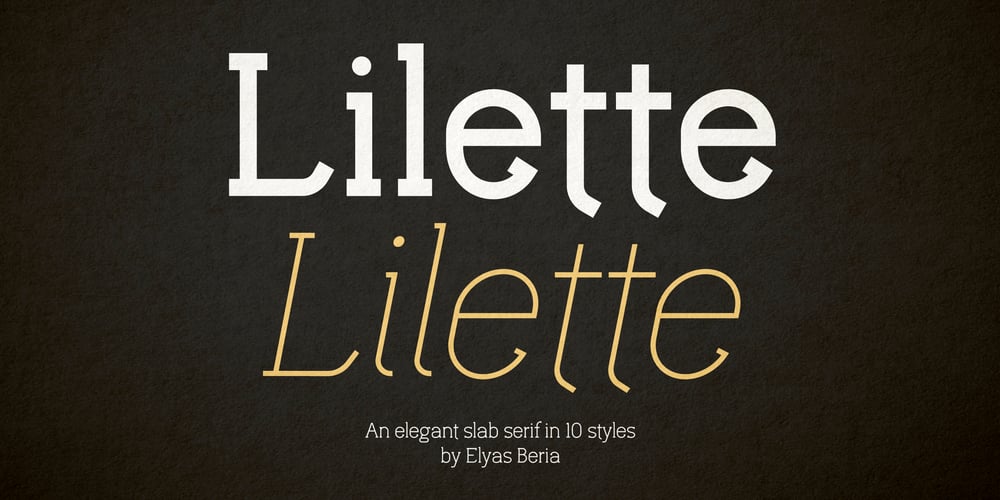
Lilette
Lilette font
Lilette Font Family was designed by Elyas Beria and published by Elyas Beria. Lilette contains 9 styles and family package options. This elegant typeface came out of a quick, back-of-the-napkin, sketch I did for a different typeface. After toiling on that typeface I looked back at the sketch and realized that I had lost some of the elegance and playful character of my original sketch. So, it was back to the drawing board and Lilette was born.Lilette is fun but also serious. Playful but elegant. Personal yet also industrial. That’s the power of a slab serif. Perfect for magazine headlines, wedding invitations, signs, posters, slides, promotions, product design, branding, logos, and so much more. Make this versatile typeface with 10 styles yours.